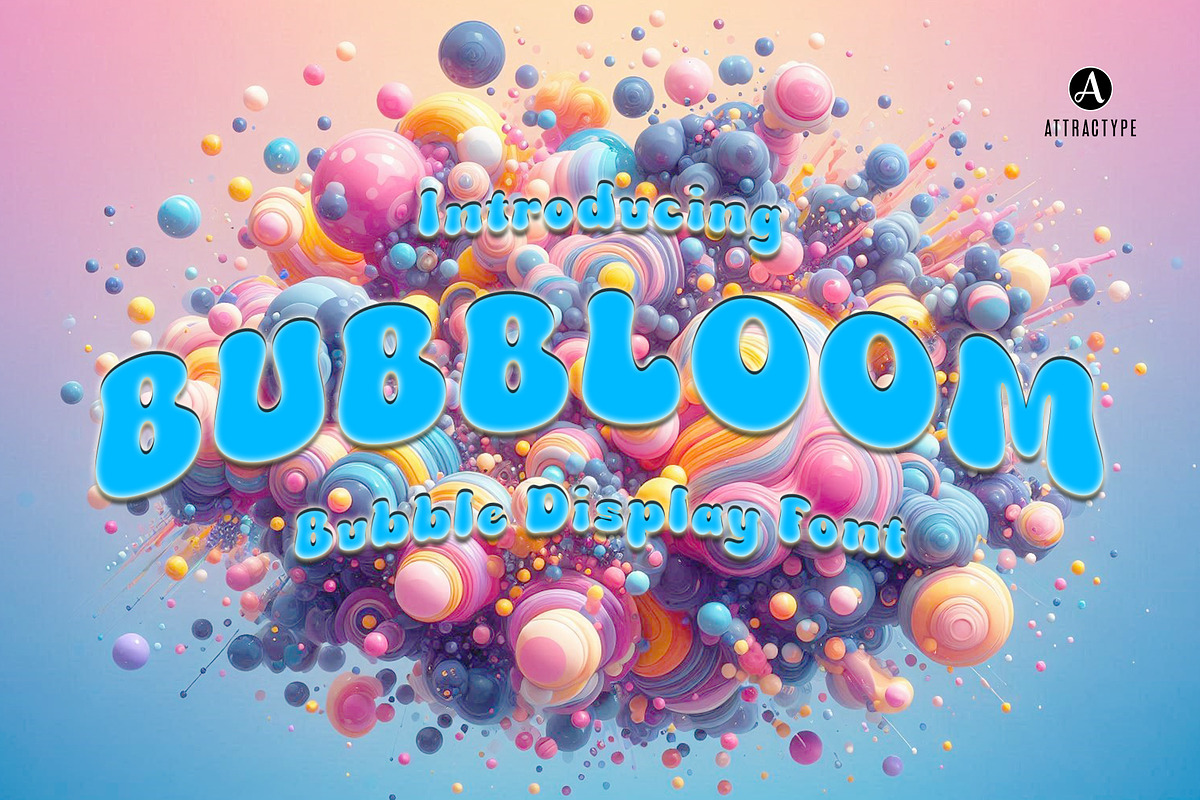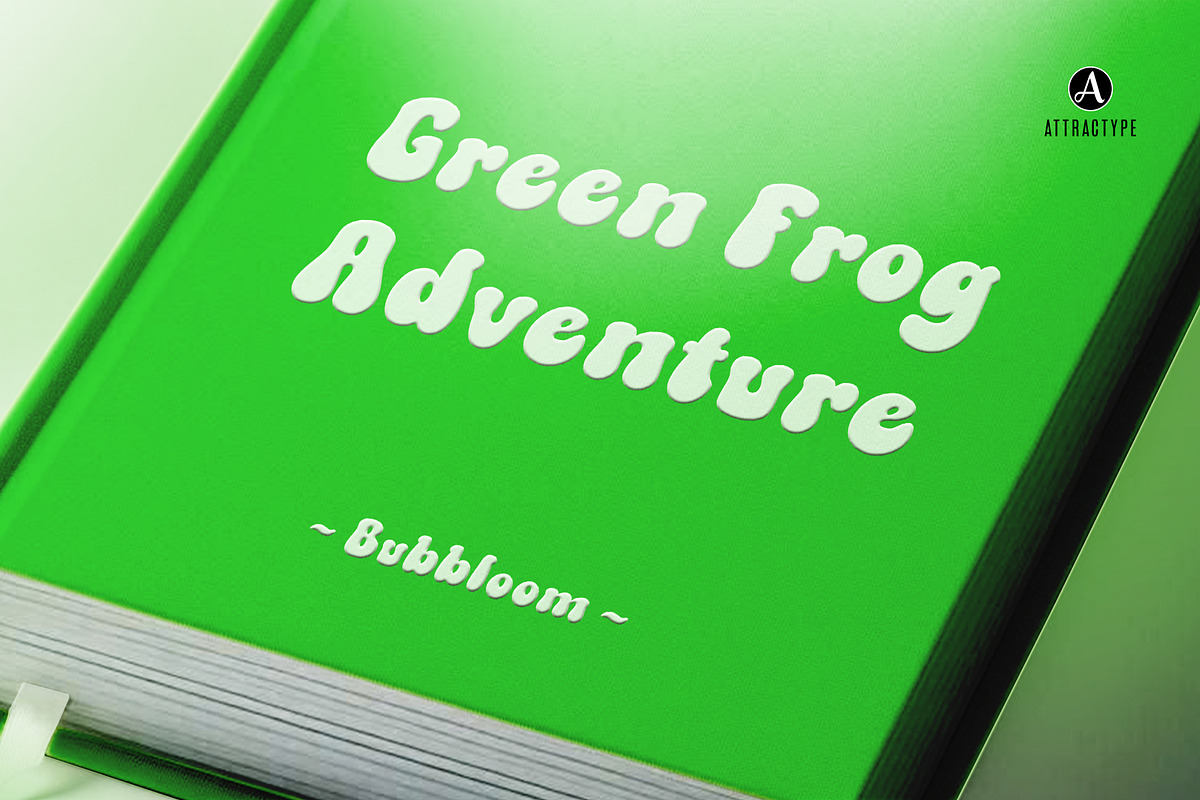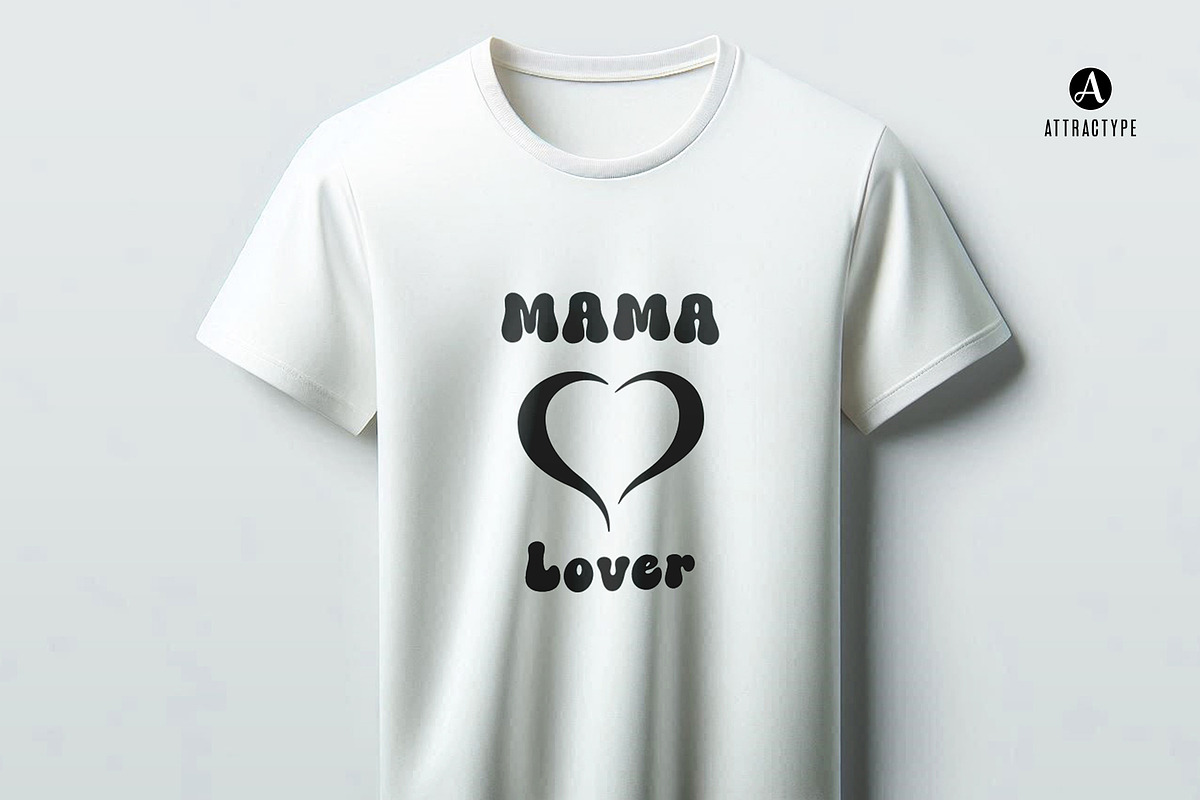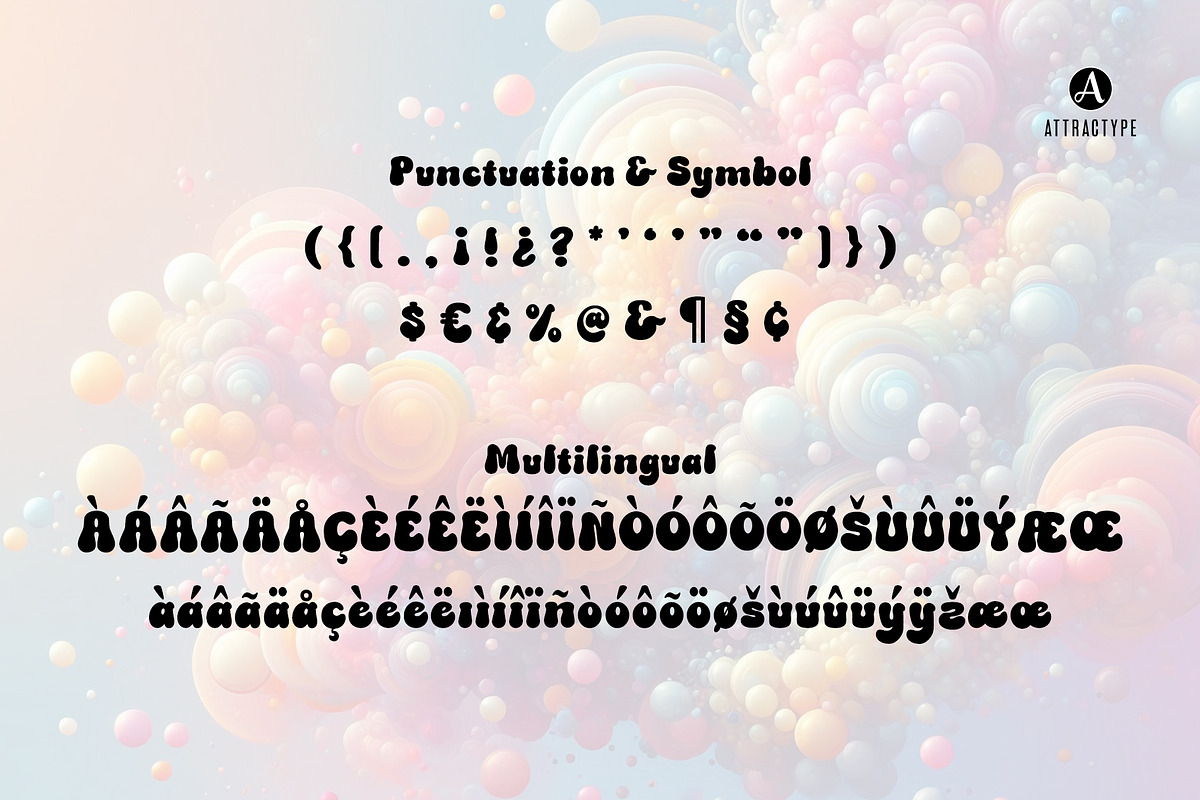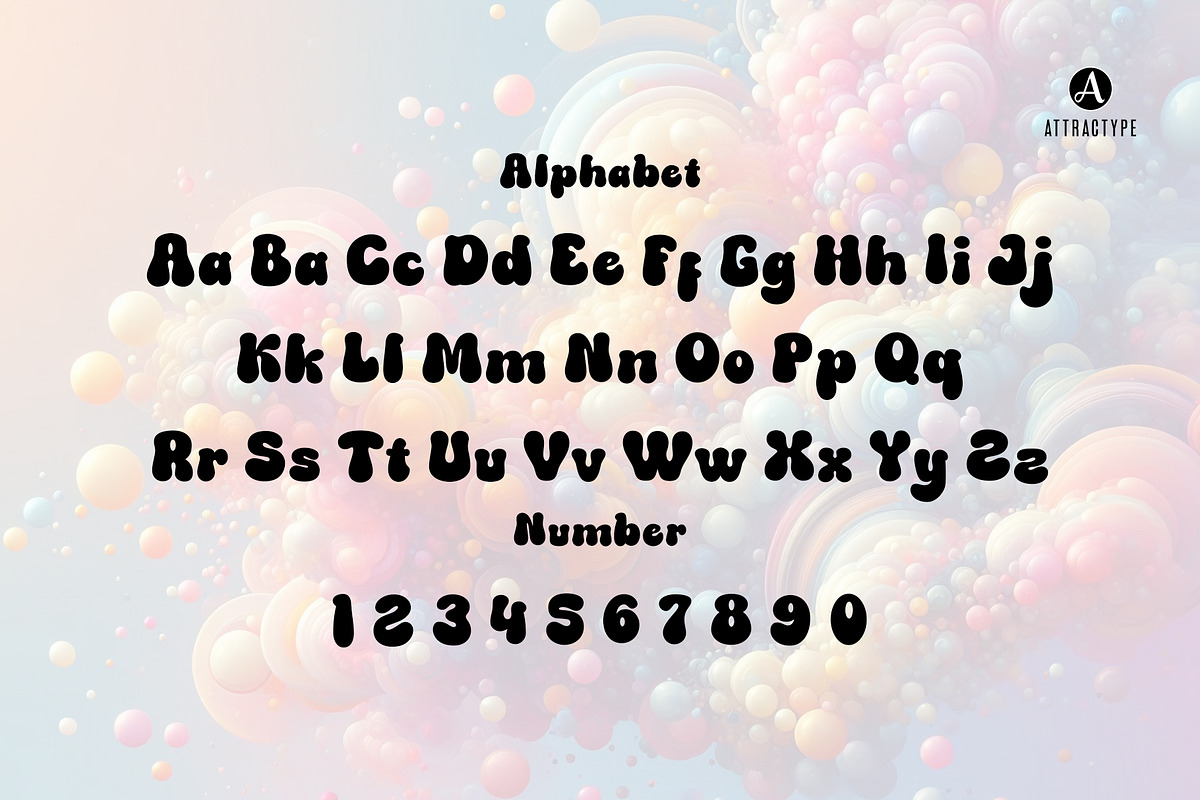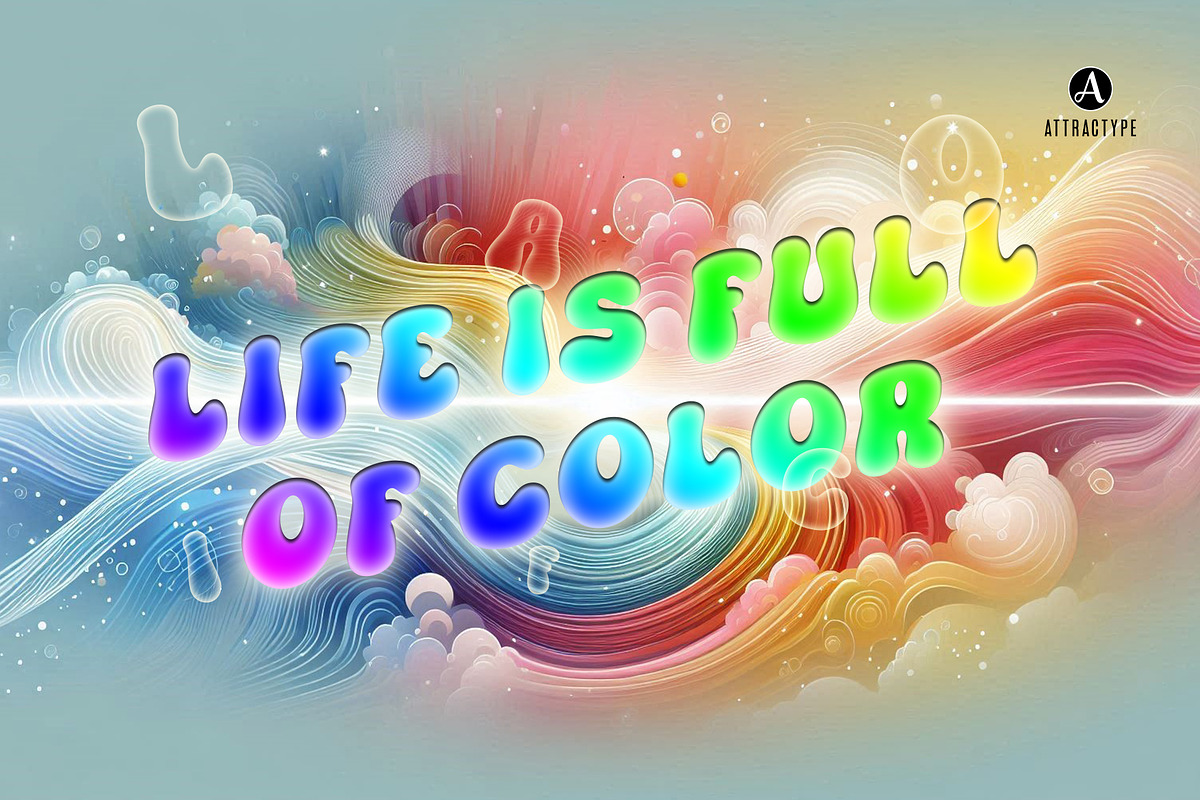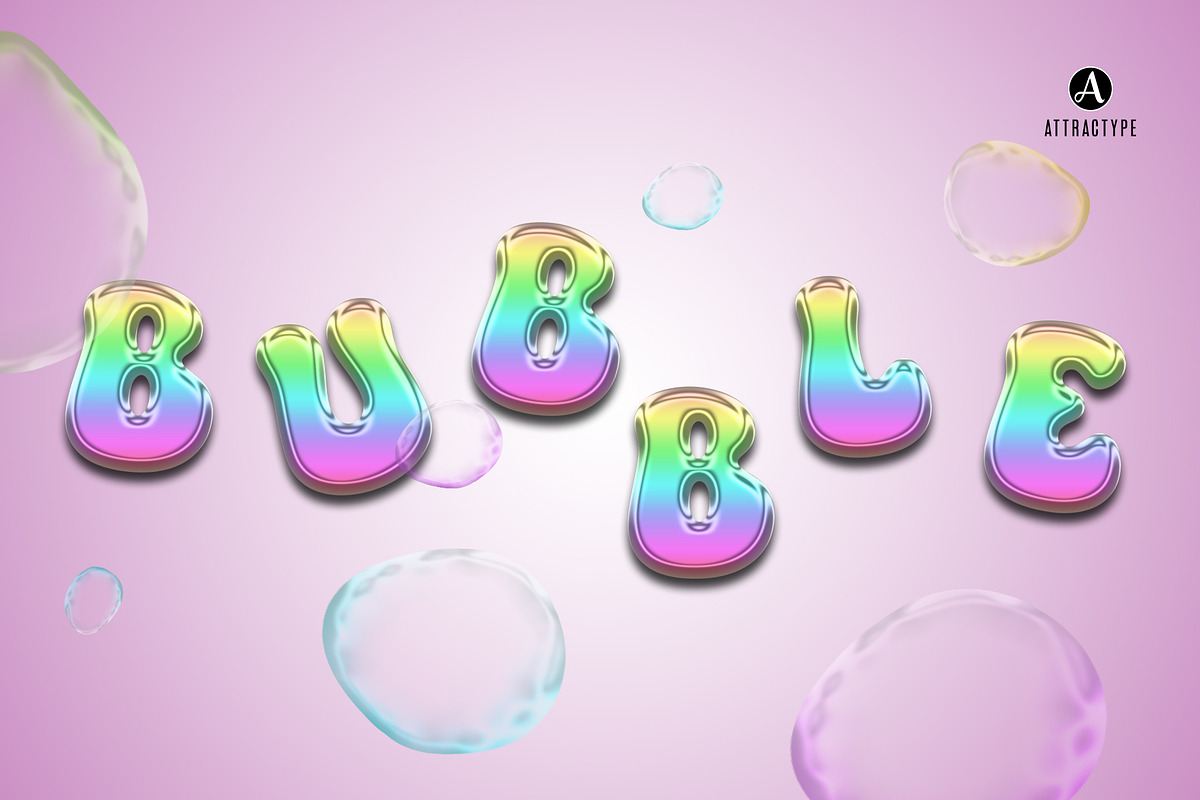
Bubbloom - Cute Bubble Font
Bubbloom, is a display font, bubble style, simple, cute, and fun. Suitable for various design projects, from simple title text, funny quotes, book cover titles, advertisements, banners, social media, t-shirts, even interesting logos with a little touch of extraordinary effects from the designer.
This font includes all uppercase characters, lowercase letters, punctuation, numbers and supports several languages, so it is worthy to be part of your font collection, and have fun creating with Bubbloom.